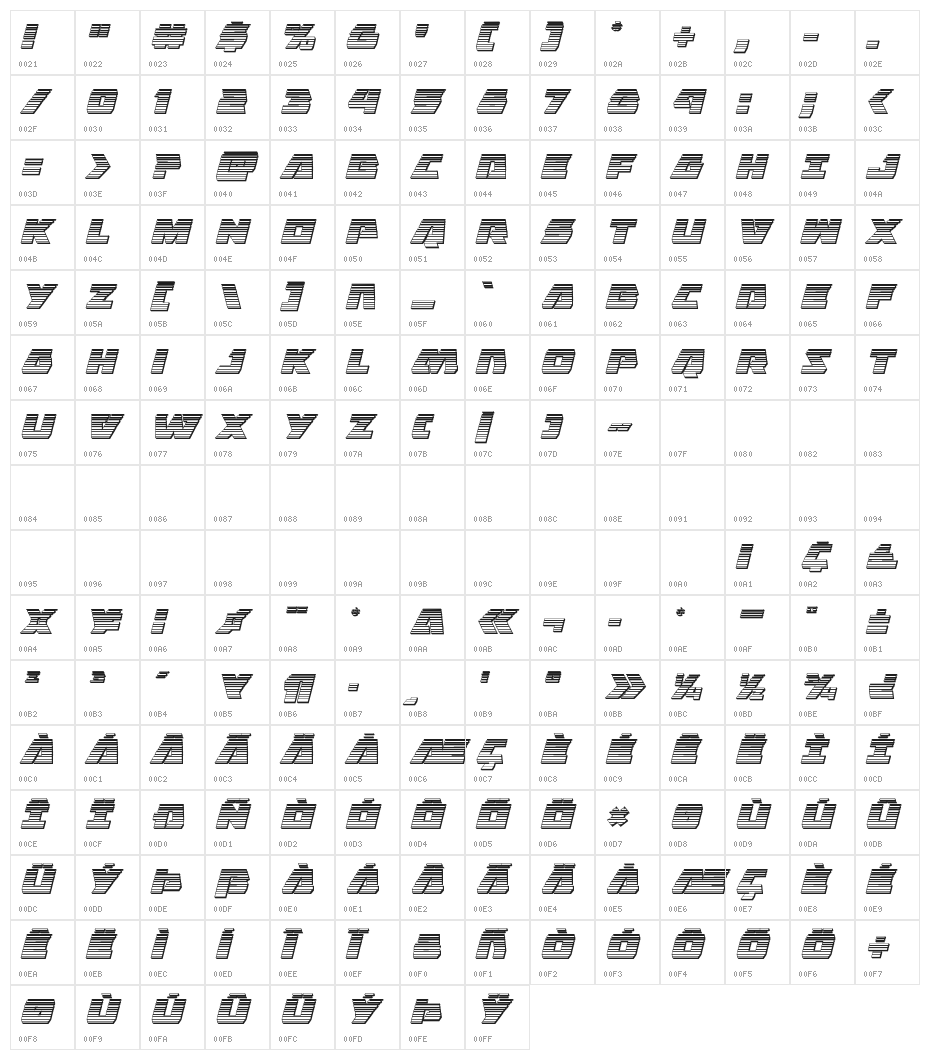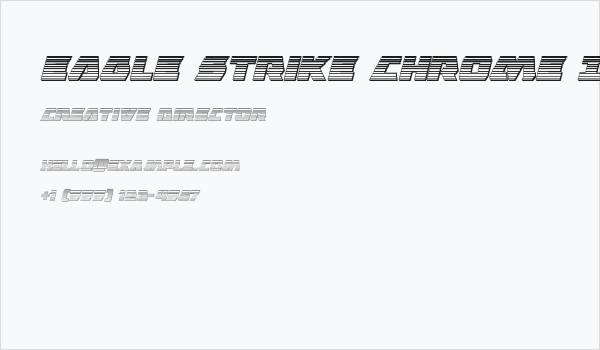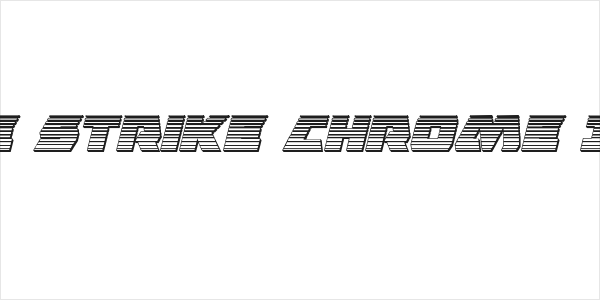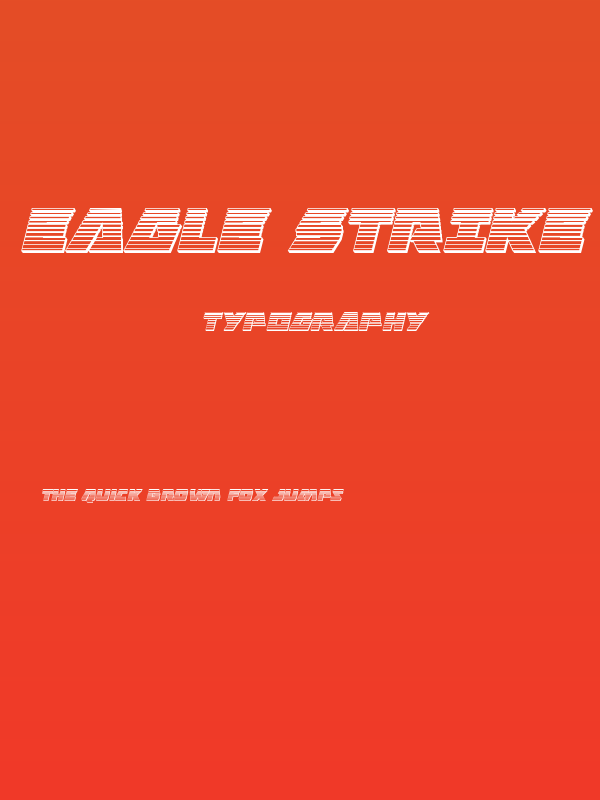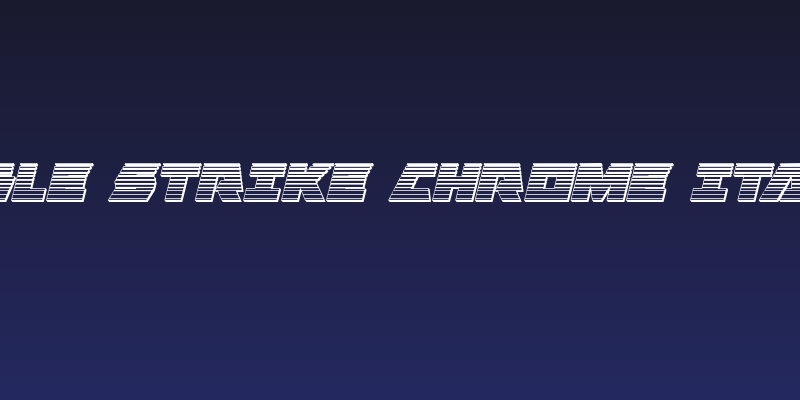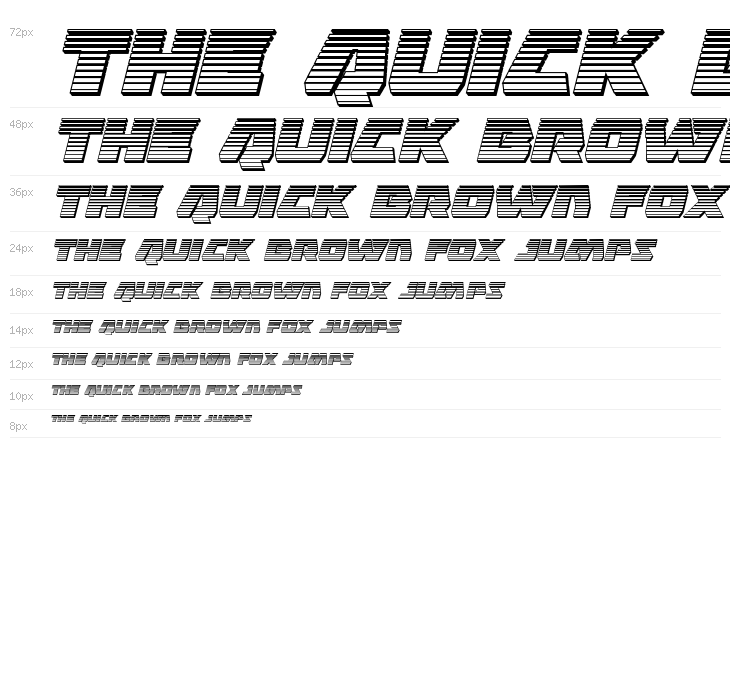
Eagle Strike Chrome Italic Font
Eagle Strike Chrome Italic Description
This font features a bold, futuristic design with a distinct chrome-like appearance. Each character is constructed with multiple parallel lines, creating a layered, three-dimensional effect. The italic slant adds a sense of motion and dynamism, making it ideal for attention-grabbing headlines or logos. The uppercase and lowercase letters maintain a consistent style, while the numerals and special characters complement the overall aesthetic. The font's unique structure and bold presence make it stand out in any design context.
| Proposed Projects | Ideal for sci-fi themed projects, tech company logos, video game titles, or any design requiring a modern, dynamic look. |